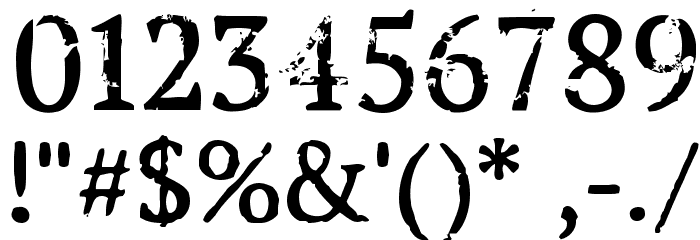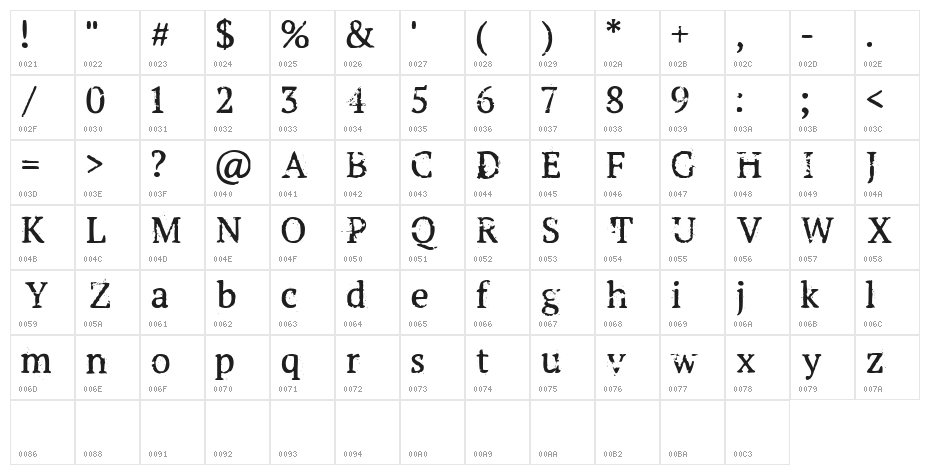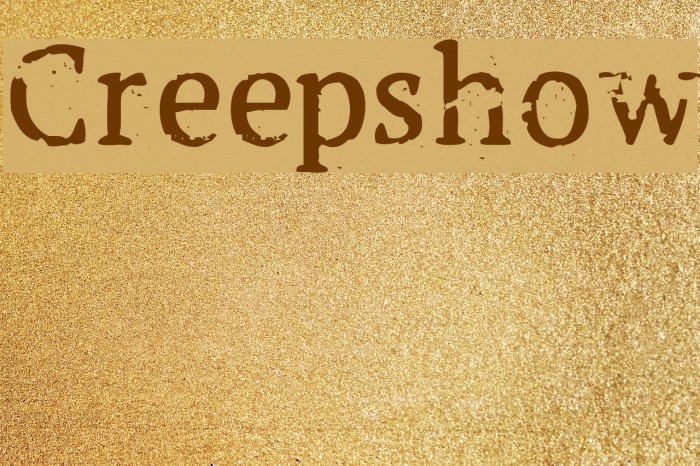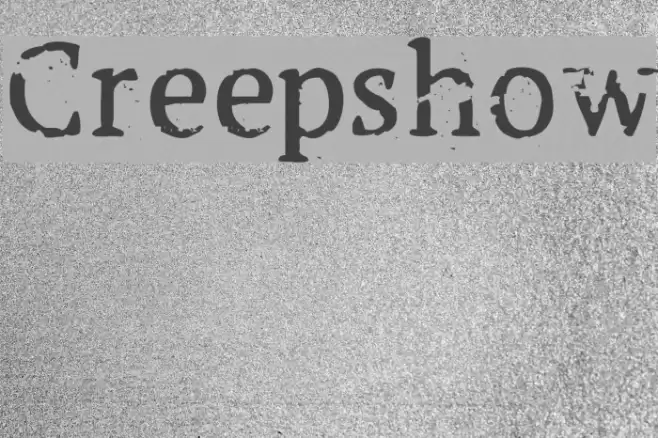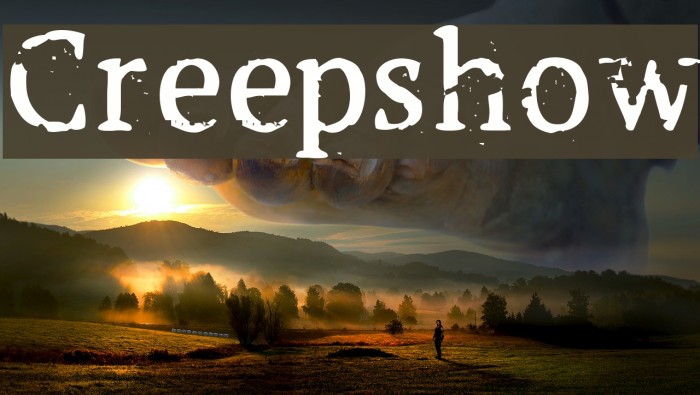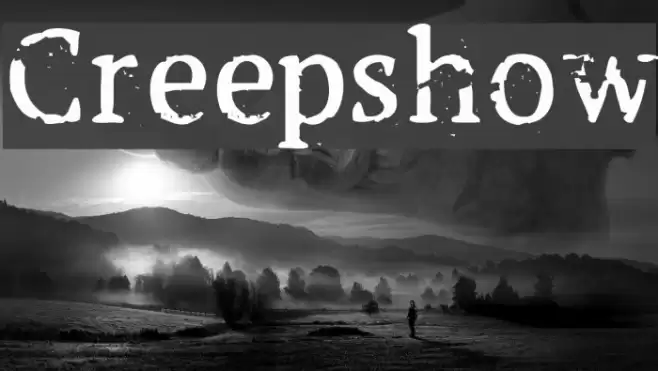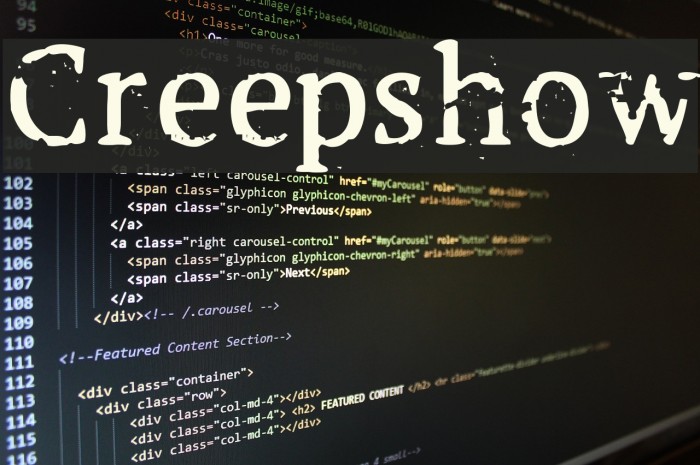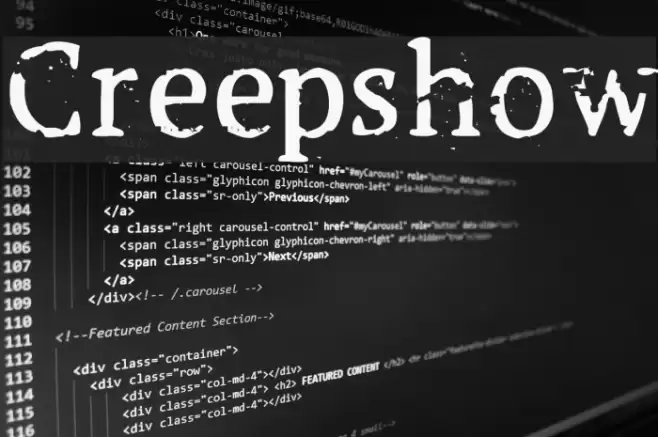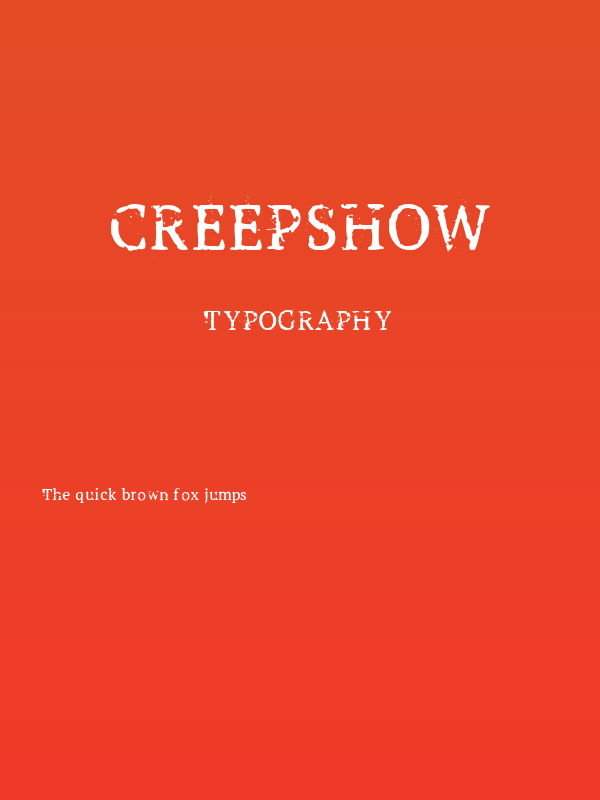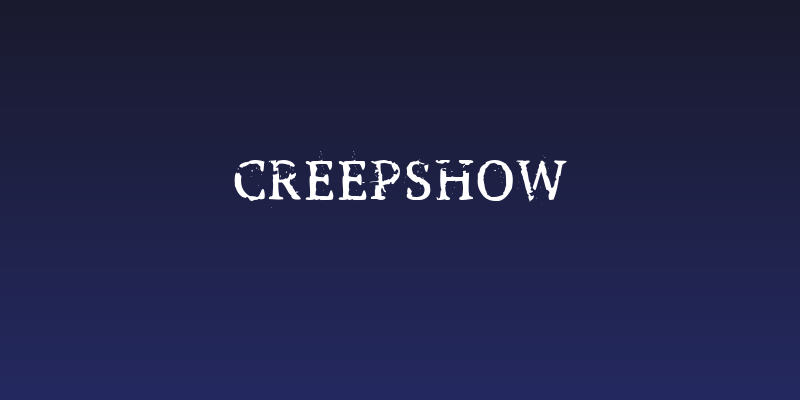
Creepshow Font
Creepshow Description
This font features a distressed and weathered appearance, reminiscent of vintage horror or thriller themes. The characters are bold and have a rough texture, giving them a worn-out look. The uppercase and lowercase letters maintain a consistent style, with jagged edges and irregularities that add to the eerie aesthetic. Numbers and special characters follow the same design, ensuring a cohesive appearance across all glyphs. This font is ideal for creating a spooky or unsettling atmosphere in design projects.
| Overall Style | Vintage, Horror |
| Use Case | Headlines, Posters, Themed Events |
| Proposed Projects | Perfect for Halloween posters, horror movie titles, themed event invitations, and spooky graphic designs. |